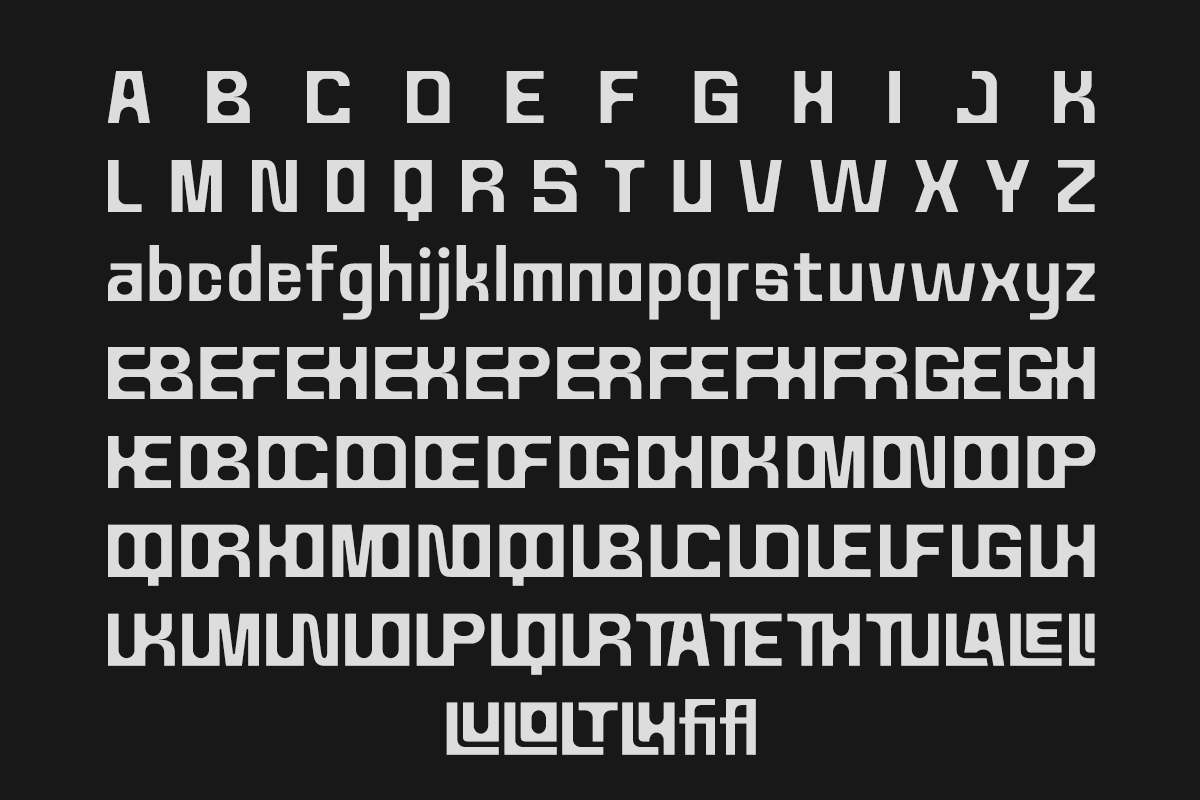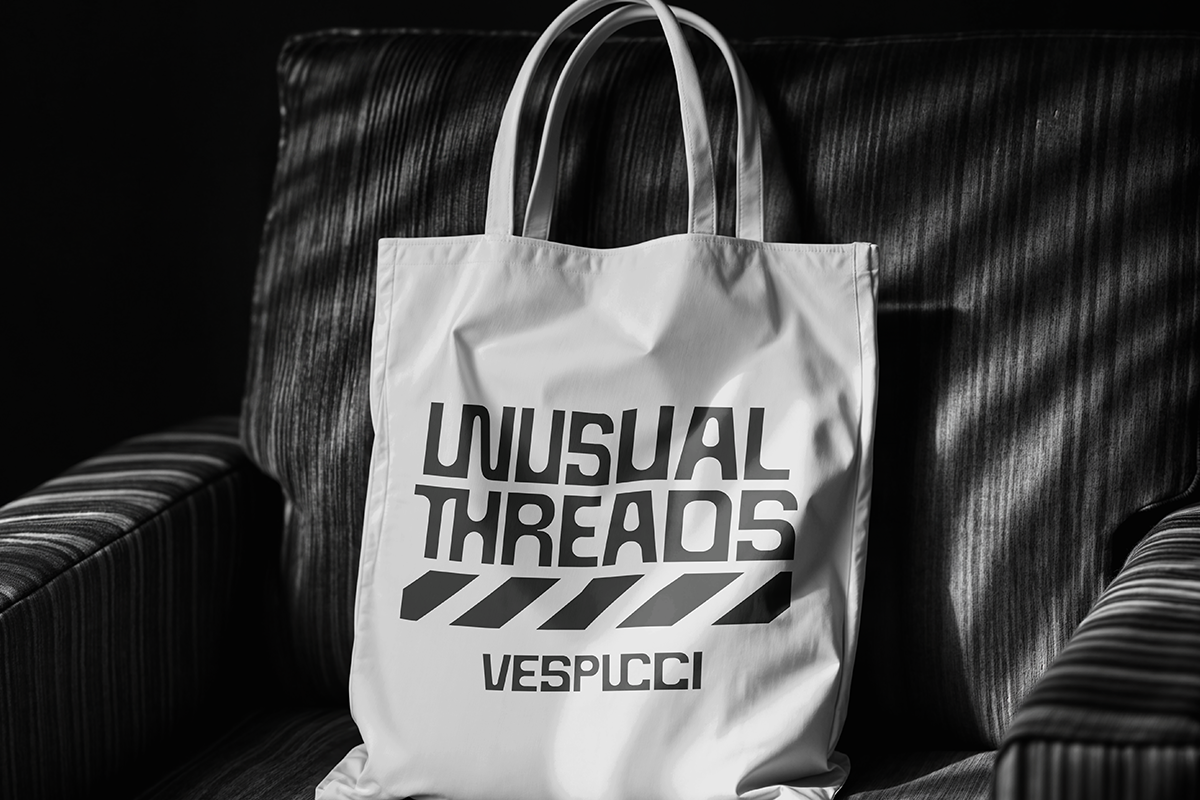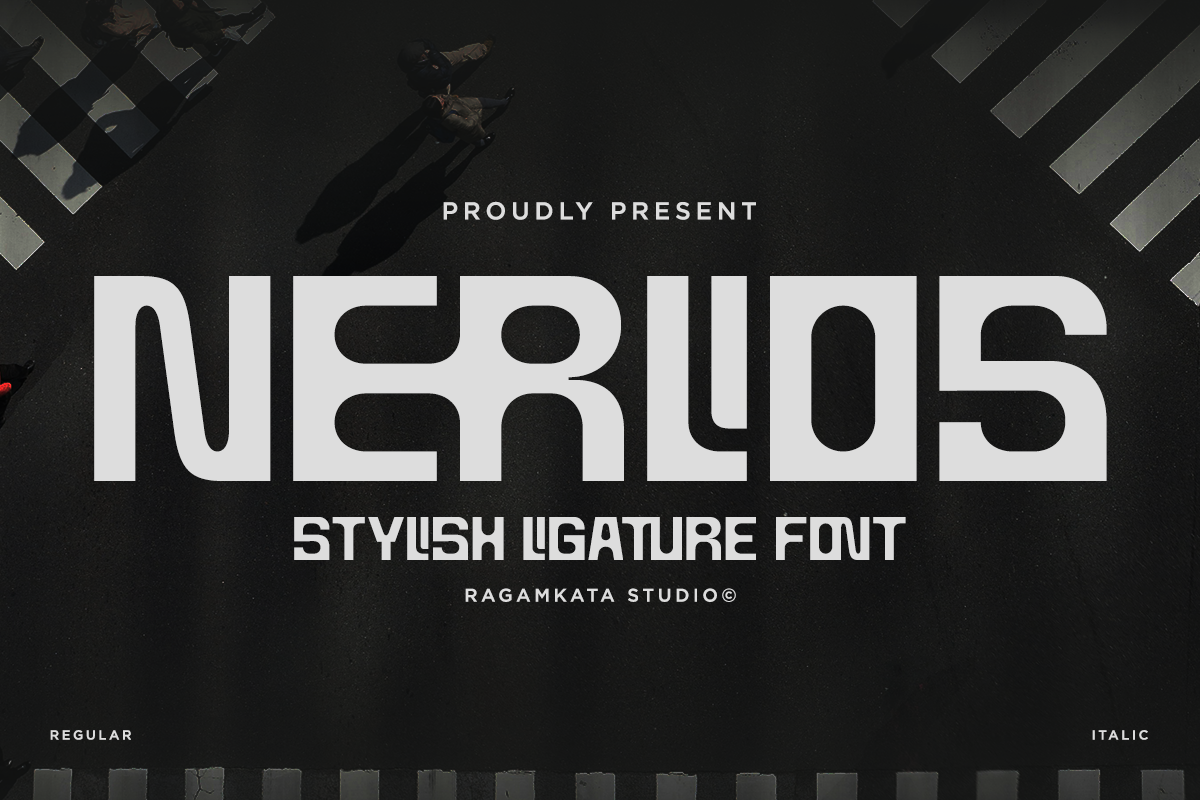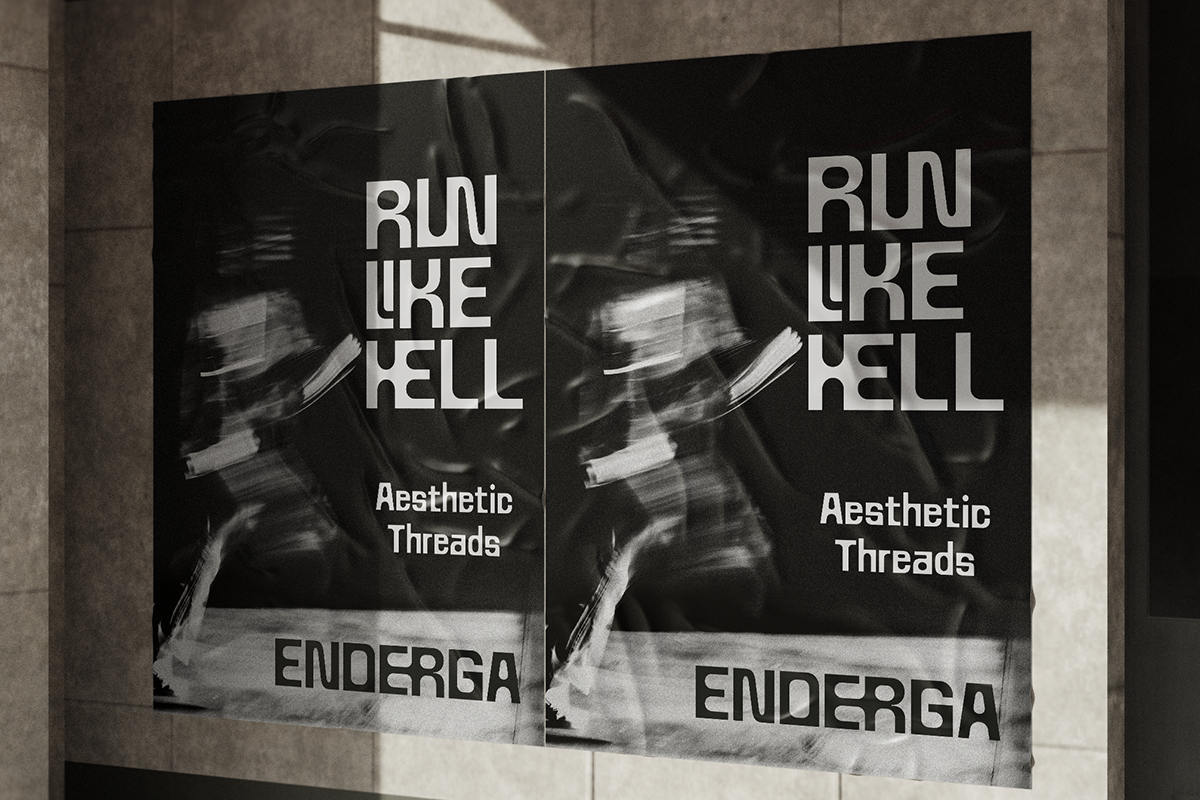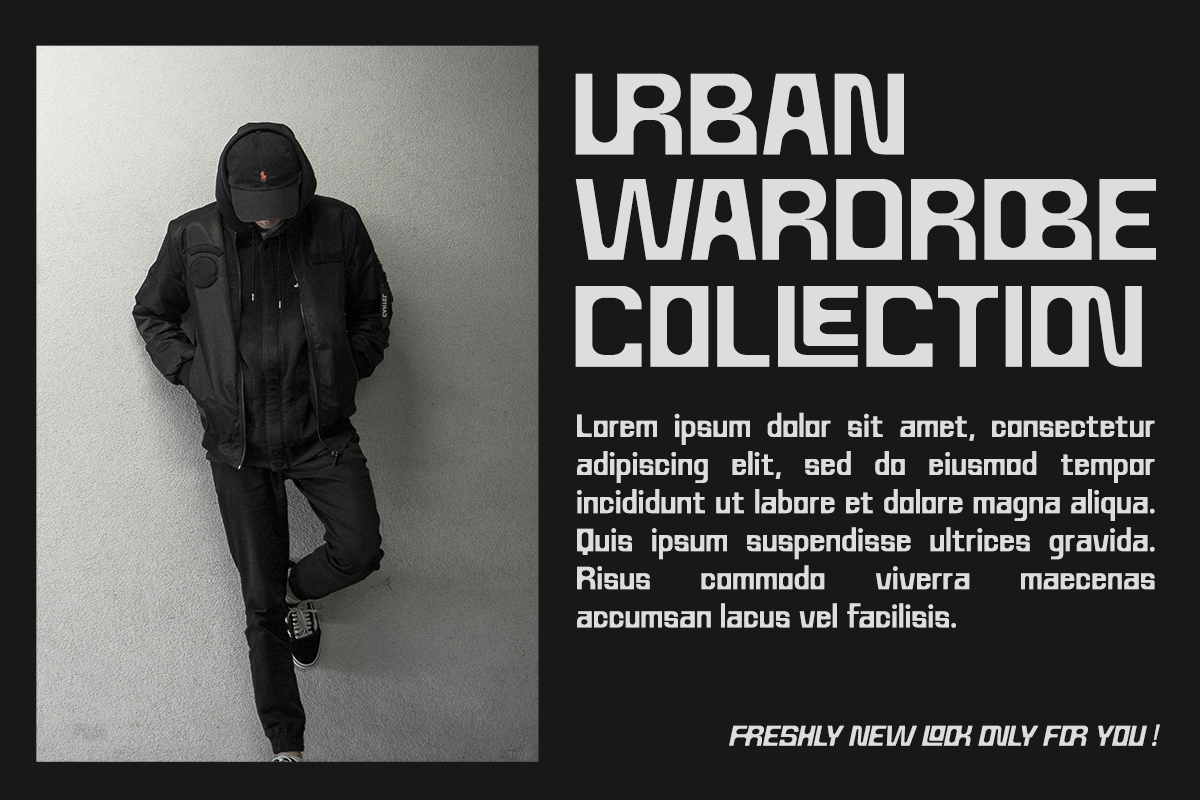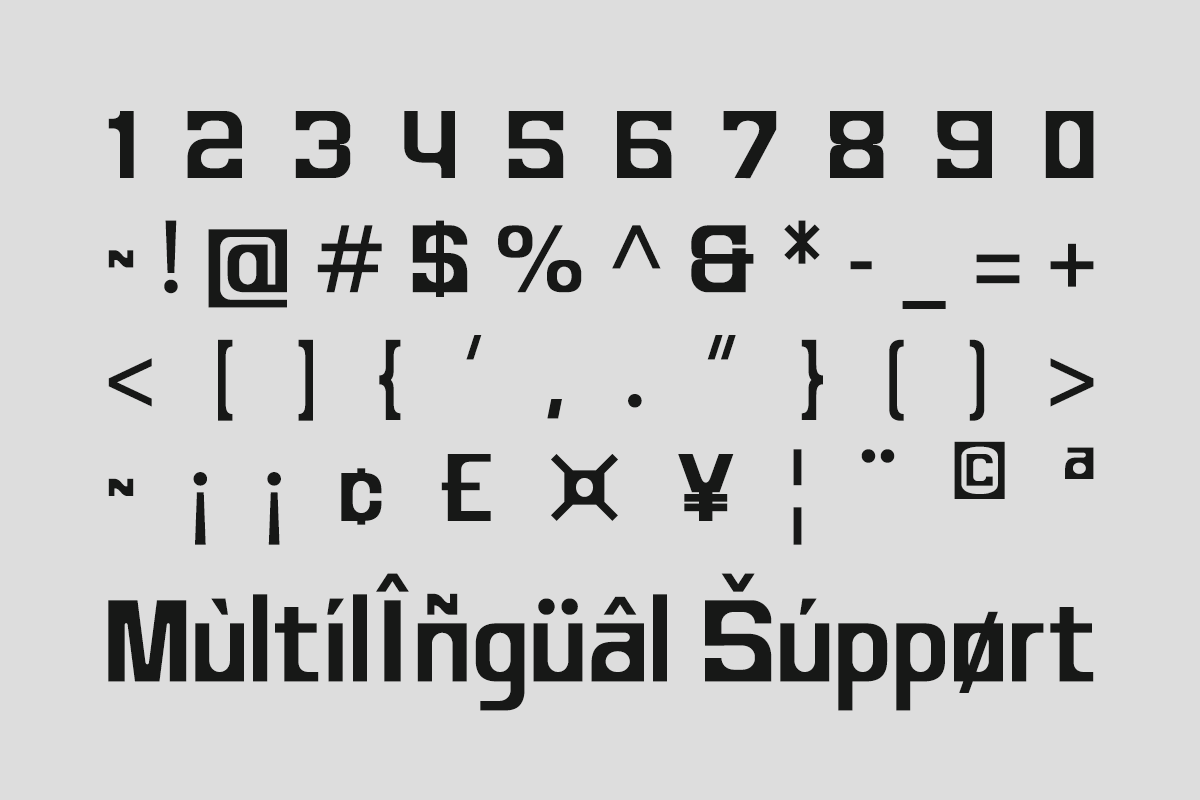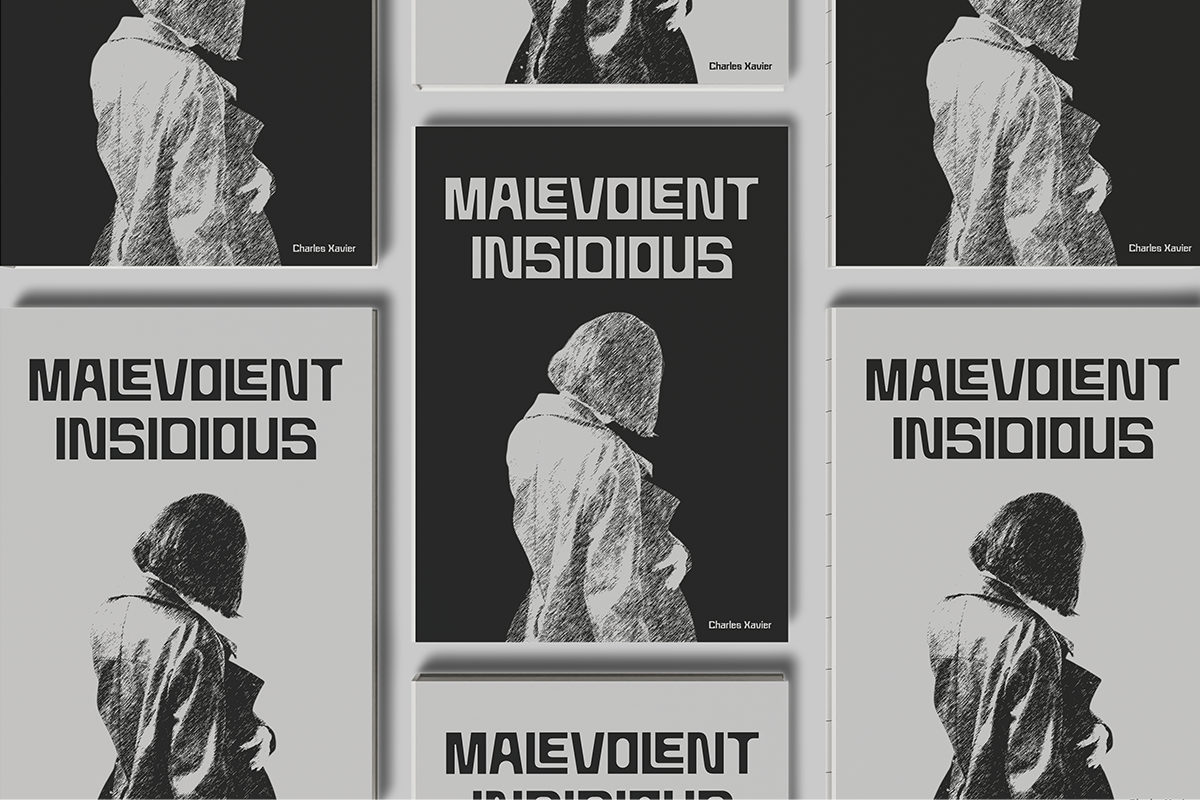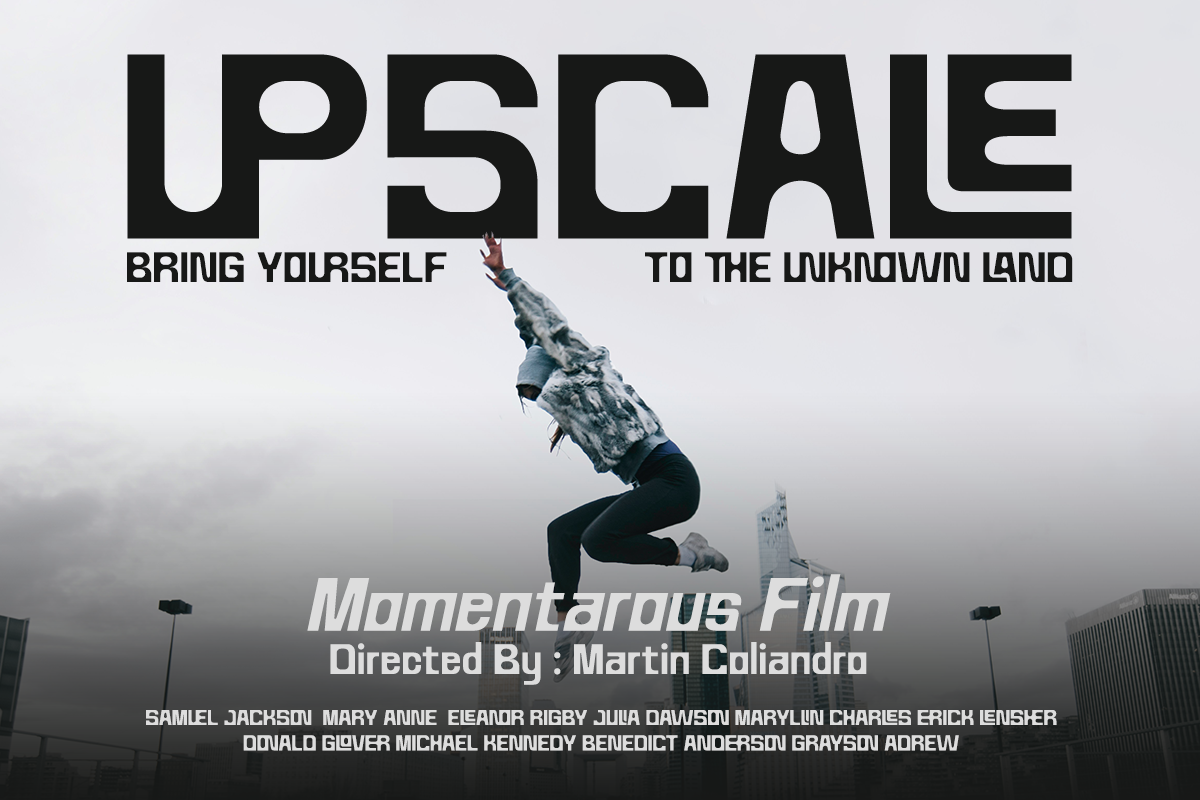
Nerlios - Stylish Ligature Font
Nerlios is a bold and stylish ligature font designed to bring a modern, futuristic edge to your typography. With strong geometric shapes, smooth curves, and eye-catching ligatures, Nerlios delivers a powerful visual impact while staying clean and readable. Perfect For logos, branding, posters, headlines, fashion designs, tech startups, gaming titles, album covers, magazine layouts, social media graphics, packaging, web design, advertising, futuristic projects, cinematic titles
- Stylish Ligature Set